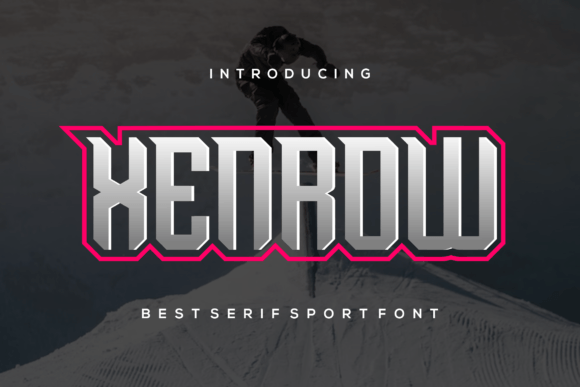
Xenrow: A Modern Display Font for Bold Statements
Xenrow is a display font that stands out with its sleek, contemporary design and versatile character set. Created to make an impression, itâs ideal for headlines, logos, posters, and any project where visual impact matters most. Whether you're a designer looking to elevate your work or a small business owner crafting a brand identity, Xenrow offers a unique blend of style and readability that can help bring your creative vision to life.
What Makes Xenrow Unique?
Display fonts like Xenrow are different from standard typefaces used in body text. Theyâre designed to be eye-catching and often feature exaggerated shapes, bold strokes, or unusual spacing. Xenrow leans into this modern aesthetic with clean lines and subtle geometric influences that give it a fresh, professional look without sacrificing charm.
The font supports a wide range of characters, including uppercase and lowercase letters, numbers, symbols, and special glyphs. This makes it suitable not just for English but also for international projects. Its versatility allows it to adapt to both digital and print formats, making it a favorite among graphic designers and content creators who value flexibility.
Who Can Benefit from Using Xenrow?
Different people have different needs when it comes to typography. Hereâs how various audiences might find Xenrow useful:
For Beginners: A Simple Way to Add Style
If you're new to design, choosing the right font can feel overwhelming. Xenrow simplifies this by offering a modern, stylish option thatâs easy to implement. You donât need advanced skills to use it effectivelyâjust apply it to your headings or logos, and let the font do the talking. For example, if you're creating a personal blog or designing a simple social media post, Xenrow can instantly make your content more visually appealing.
For Creators and Entrepreneurs: Branding with Confidence
Creators and entrepreneurs often use typography as part of their branding strategy. Xenrowâs bold yet refined appearance can help establish a strong visual identity. A logo using Xenrow might appear on product packaging, website headers, or promotional materials. The font conveys professionalism while still feeling approachable, which is especially important for startups or indie brands trying to stand out in a crowded market.
For Marketers and Bloggers: Capturing Attention in Digital Spaces
In the fast-paced world of online content, first impressions matter. Marketers and bloggers can leverage Xenrow to create attention-grabbing titles and banners. Because it works well at larger sizes, it's perfect for hero sections, infographics, or even YouTube thumbnails. When paired with the right color palette and imagery, Xenrow can guide usersâ eyes toward key messages and improve overall engagement.
For Educators and Publishers: Elevating Educational Materials
Educators and publishers might use Xenrow to add flair to presentations, course materials, or book covers. Itâs particularly effective for section headings in e-books or study guides, helping to break up dense content and highlight important topics. The fontâs clarity ensures that even with its stylized form, it remains legible enough to maintain academic integrity.
For Small Business Owners: Building a Memorable Presence
Small business owners often juggle multiple roles, including marketing and design. Xenrow gives them a powerful tool to enhance their storefronts, signage, or packaging. Imagine using it on a cafĂ© sign or a boutique window displayâit adds personality while maintaining professionalism. The font helps businesses communicate their values through visual language, which is crucial in attracting customers and building brand recognition.
For Freelancers and Designers: A Creative Asset in Their Toolkit
Freelancers and designers appreciate fonts that offer both creativity and reliability. Xenrow fits the bill for those working on client projects that require a modern twist. Itâs particularly useful in web design, app interfaces, or editorial layouts where a strong typographic presence is needed. Its consistent weight and structure allow for seamless integration with other supporting fonts, giving designers room to experiment while keeping their designs cohesive.
For Hobbyists and Consumers: Expressing Personal Taste
Hobbyists and consumers may not be professionals, but they still want to express themselves creatively. Whether you're customizing a T-shirt for a friend or designing a birthday card, Xenrow can help you create something memorable. Itâs available in multiple weights and styles (depending on the version), so even casual users can explore different looks without needing complex software or design knowledge.
Key Considerations When Choosing Xenrow
While Xenrow is an excellent choice for many, itâs important to consider what matters most for your specific use case. Here are some priorities to keep in mind:
- Visual Impact: If your goal is to grab attention quickly, Xenrowâs bold and modern style is hard to beat.
- Readability: Though itâs a display font, Xenrow maintains good legibility, especially in short bursts of text.
- Commercial Use: Always verify the licensing terms before using any font in commercial projects. Some versions of Xenrow may require a purchase for extended usage rights.
- Compatibility: Check whether the font works well across platforms and devices, especially if you're designing for the web or mobile apps.
- Cost vs. Value: While free alternatives exist, investing in a premium version of Xenrow could provide better quality, support, and legal coverage for business use.
Practical Examples of Xenrow in Action
Here are some real-world scenarios where Xenrow shines:
- Web Design: A freelance web designer uses Xenrow for a clientâs homepage headline, pairing it with a sans-serif base font to balance style and function.
- Marketing Campaigns: A blogger creates a promotional banner for a new article series using Xenrow, making the title pop against a minimalist background.
- Print Media: An independent publisher selects Xenrow for the cover of a self-help book, enhancing the design with metallic foil effects to emphasize key words.
- Social Media: A small business owner uses Xenrow in Instagram posts to showcase limited-time offers, ensuring the message stands out in a feed full of images.
- Personal Projects: A hobbyist creates a custom vinyl sticker for their car using Xenrow, turning a functional item into a statement piece.
Is Xenrow Right for Your Project?
To decide whether Xenrow suits your needs, ask yourself these questions:
- Do I need a font that commands attention without being over-the-top?
- Will my audience primarily see this in digital or print format?
- Am I looking for a font that balances style with readability?
- Can I commit to a font that requires thoughtful pairing to avoid clashing with other design elements?
If you answered yes to most of these, Xenrow could be a great fit. However, if your project involves long blocks of text, such as novels or technical manuals, you might want to choose a more readable typeface instead. Remember, the best fonts are those that align with your goals and serve the purpose of your content.
How to Get Started with Xenrow
Getting started with Xenrow is straightforward. First, locate a trusted source to download the font. Make sure to review the licensing agreement to understand how you can legally use it. Once installed, open your preferred design softwareâsuch as Adobe Photoshop, Illustrator, or Figmaâand select Xenrow from the font menu.
Experiment with different colors, sizes, and contrasts to see how it complements your visuals. Keep in mind that less is often more with display fonts. Try using Xenrow sparingly to highlight only the most important elements of your design. Overusing it can dilute its effect and lead to a cluttered appearance.
Final Thoughts
Typography plays a vital role in communication, influencing how we perceive messages and brands. Xenrow brings a modern, confident edge to any project, making it a valuable asset for those who want to make a lasting visual impression. Whether you're designing a logo, writing a blog post, or simply expressing your style, Xenrow has the potential to enhance your work in meaningful ways.
So go aheadâadd Xenrow to your toolkit. Test it in your next project, pair it thoughtfully, and enjoy the results it brings to your creative output.